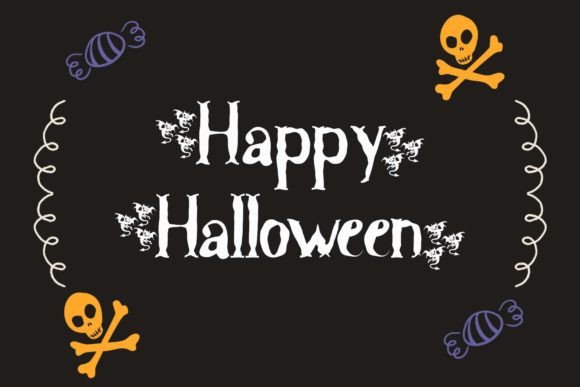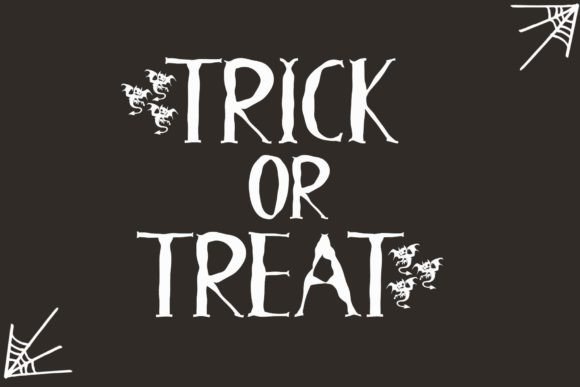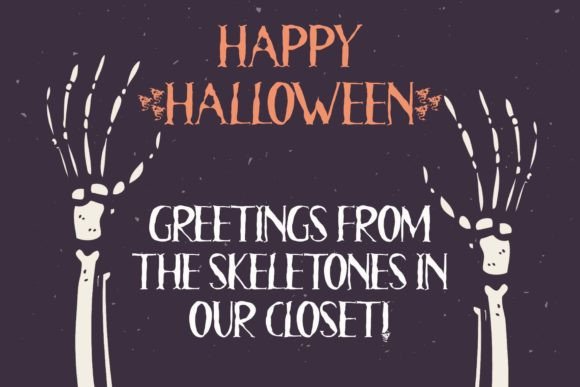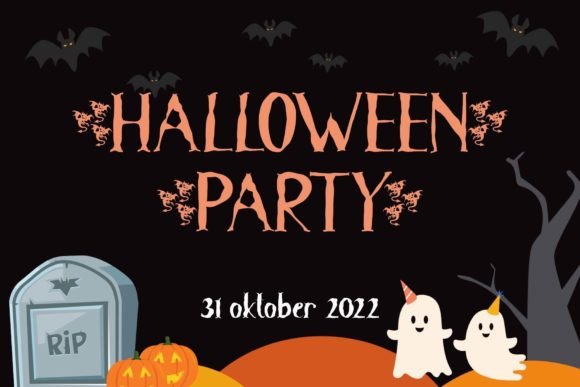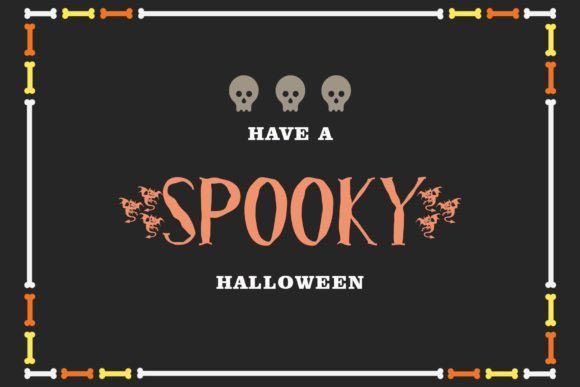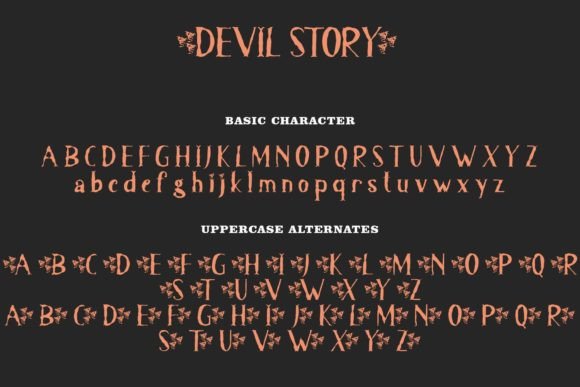
Unleash the Spirit of Halloween with Devil Story Font
As the spookiest time of the year approaches, designers and crafters are on the lookout for the perfect typography to add a touch of eeriness to their Halloween-themed creations. Look no further than the Devil Story Font, a Halloween-themed serif font that’s sure to cast a spell on your audience. In this article, we’ll dive into the details of this wicked font and explore its uses, features, and benefits.
A Font that’s Pure Evil
Devil Story Font is a serif font with a twist – it’s decorated with “devil” letters that add a playful yet spooky touch to your designs. The font’s unique style is perfect for creating eye-catching Halloween party celebrations, party invitations, posters, prints, stickers, and more. Whether you’re designing for a client’s Halloween party or creating your own festive decorations, Devil Story Font is sure to make your designs stand out from the crowd.
One of the best features of Devil Story Font is that it’s PUA (Private Use Area) encoded. This means that you can access all of the glyphs and swashes with ease, giving you complete creative control over your designs. With PUA encoding, you can effortlessly insert special characters, ligatures, and other unique elements that will take your designs to the next level.
Devil Story Font is incredibly versatile, making it perfect for a wide range of design projects. Here are just a few ideas to get you started:
- Halloween party invitations: Create spooky and inviting party invites that set the tone for a howling good time.
- Posters and prints: Design eye-catching posters and prints that showcase your favorite Halloween characters, from ghosts and goblins to bats and black cats.
- Stickers and labels: Add a touch of Halloween flair to your stickers and labels with Devil Story Font’s unique and playful style.
- Social media graphics: Create spooky social media graphics that will make your followers shiver with delight.
Why Choose Devil Story Font?
With so many fonts available, why choose Devil Story Font for your Halloween designs? Here are just a few reasons:
- Unique style: Devil Story Font’s playful yet spooky style is unlike any other font on the market.
- Easy to use: With PUA encoding, you can access all of the font’s glyphs and swashes with ease.
- Versatile: Devil Story Font is perfect for a wide range of design projects, from party invitations to social media graphics.
- High-quality: This font is designed with high-quality craftsmanship, ensuring that your designs look professional and polished.
Tips for Using Devil Story Font
To get the most out of Devil Story Font, here are a few tips to keep in mind:
- Experiment with different colors: Devil Story Font looks great in a range of colors, from bold and bright to dark and muted.
- Mix and match: Combine Devil Story Font with other fonts and graphics to create unique and eye-catching designs.
- Play with glyphs and swashes: Take advantage of the font’s PUA encoding to add special characters and ligatures to your designs.
Devil Story Font is the perfect addition to any designer’s toolkit, especially those who specialize in Halloween-themed creations. With its unique style, PUA encoding, and versatility, this font is sure to cast a spell on your audience. Whether you’re designing party invitations, posters, prints, or social media graphics, Devil Story Font is the perfect choice. So why wait? Download Devil Story Font today and unleash the spirit of Halloween in your designs!